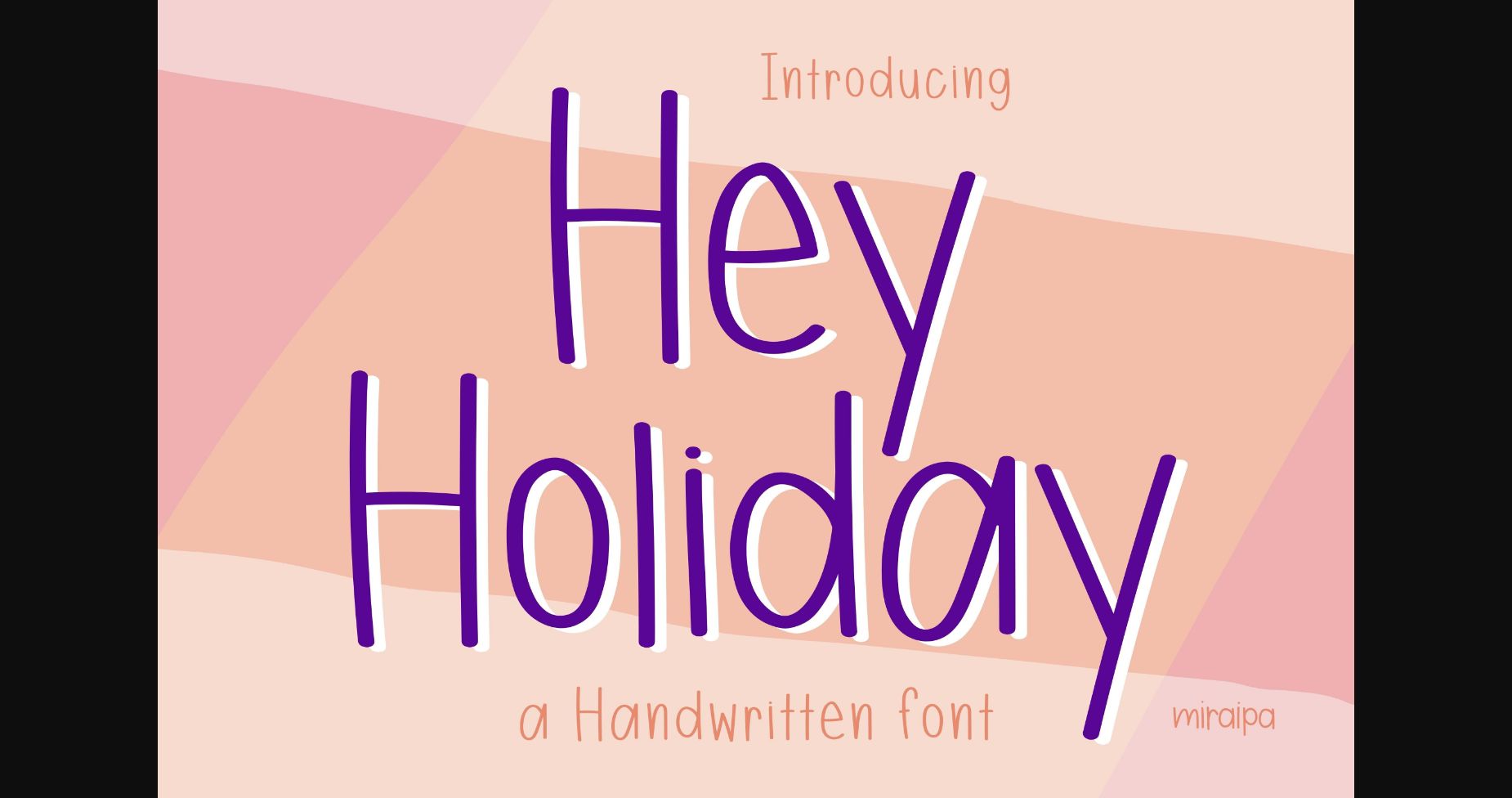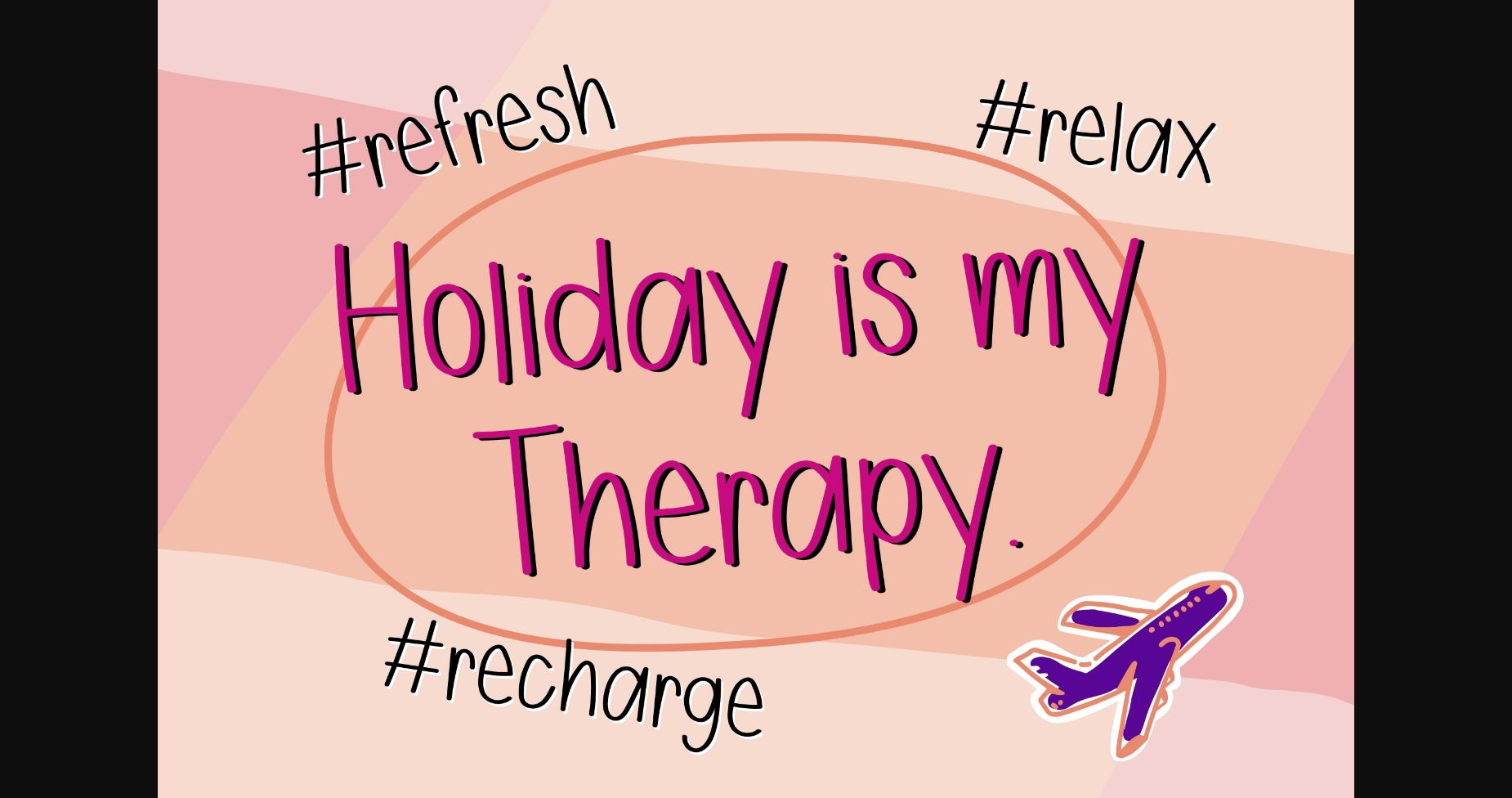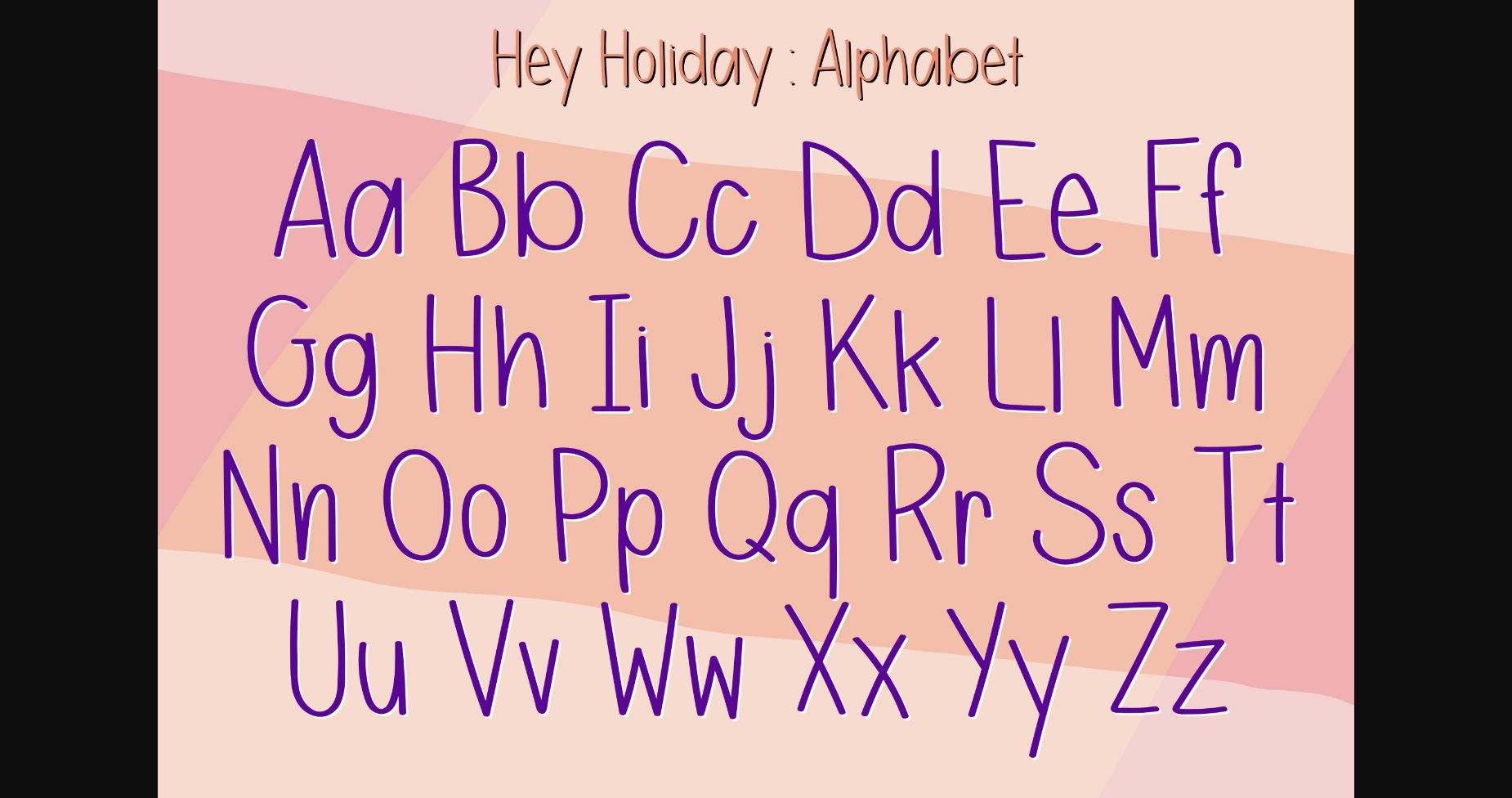
About Hey Holiday Font
Hey Holiday is a cute and charming sans serif font. Whimsical and a bit quirky, this font will brighten up each of your designs. Add it confidently to your projects, and you will love the results.